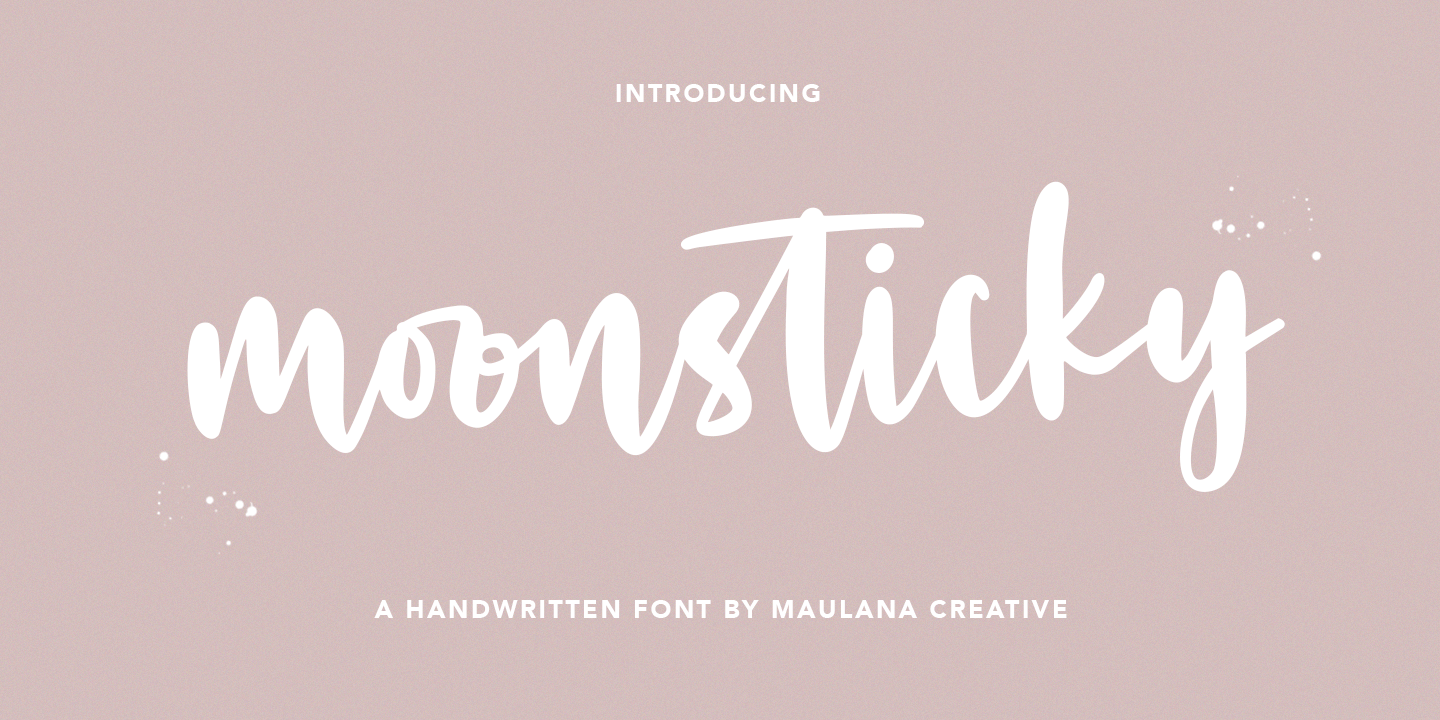
Moonsticky Font is perfect for mystical brand identities, magical event posters, celestial-themed packaging, dreamy children's storybooks, nighttime event invitations, enchanting jewelry catalogs, cosmic beauty product branding, whimsical lunar calendars, ethereal art gallery exhibitions, and captivating astronomy presentations.
Moonsticky Font is exciting because it captures the mesmerizing allure of moonlit nights through its celestially-inspired letterforms that seem to glow with lunar magic and otherworldly charm, creating an enchanting atmosphere that transports viewers to realms where dreams and reality dance together under starlit skies. This extraordinary typeface embodies the perfect fusion of cosmic mystery and sticky memorability, making it an essential tool for designers who understand that some messages need the magnetic pull of celestial wonder to truly captivate their audience.
The Moonsticky Font family features a mystical collection including Regular, Bold, Light, Glow effects, Shadow variations, Outline styles, Textured finishes, Script alternatives, and magical decorative elements, providing complete design flexibility for any lunar-inspired creative project.
Moonsticky Font represents a breakthrough in celestial typography, delivering otherworldly visual impact for projects that celebrate mystery, magic, and cosmic beauty. Its distinctive lunar character structure makes it particularly effective for brands seeking to establish an enchanting presence in mystical and creative markets.
The celestial appeal of Moonsticky Font makes it ideal for astrology services, magical entertainment venues, cosmic-themed restaurants, mystical jewelry brands, nighttime event planners, and creative studios specializing in ethereal and dreamlike aesthetics. Its magnetic letterforms ensure memorable brand recognition among mystically-inclined and spiritually-curious audiences.
Creative professionals understand how Moonsticky Font Free Download provides instant access to premium celestial typography that transforms ordinary designs into extraordinary expressions of lunar magic and cosmic wonder. The font's comprehensive character set supports diverse mystical applications while maintaining its distinctive sticky memorability.
Moonsticky Font's advanced features include contextual glow effects, magical ligatures, celestial alternates, and lunar styling options that enhance the font's otherworldly character. These mystical elements enable designers to create compelling layouts that resonate with spiritually-minded audiences and cosmic enthusiasts.
The versatility of Moonsticky Font extends gracefully across mystical applications, proving equally effective for astrology websites, magical mobile apps, celestial social media campaigns, lunar-themed digital content, and enchanting online publications. Its scalable design maintains cosmic allure at any size.
For design professionals working with mystical themes, Moonsticky Font delivers the perfect combination of celestial charm and magnetic functionality. Its lunar appeal combined with technical excellence makes it an indispensable resource for creating memorable visual communications that capture the enchanting mystery and sticky fascination of moonlit magic in today's spiritually-awakening marketplace.